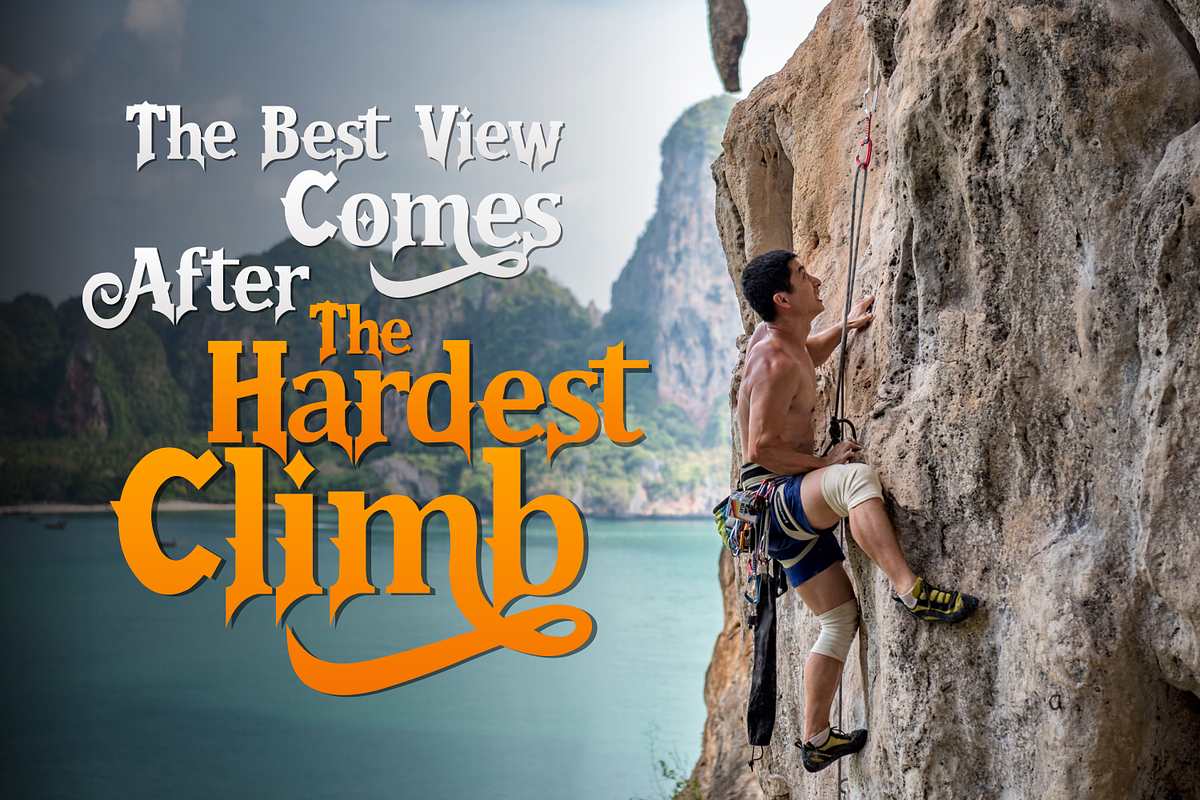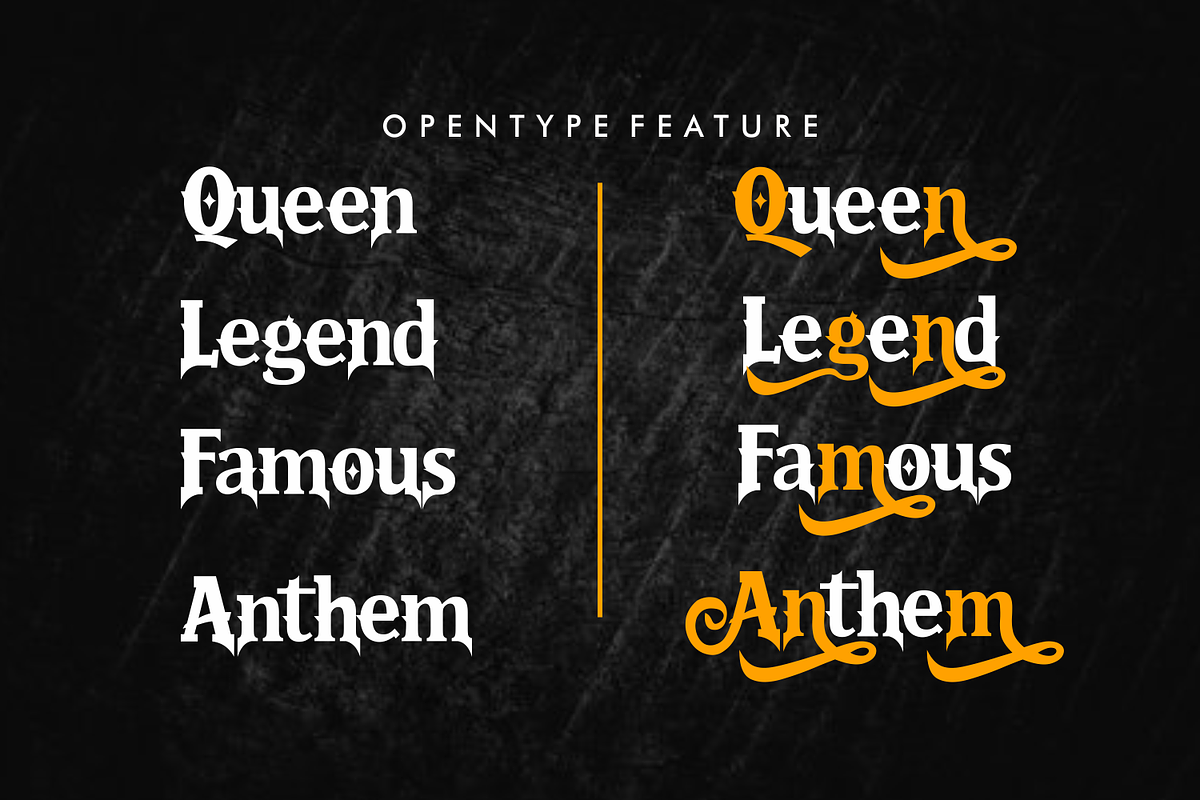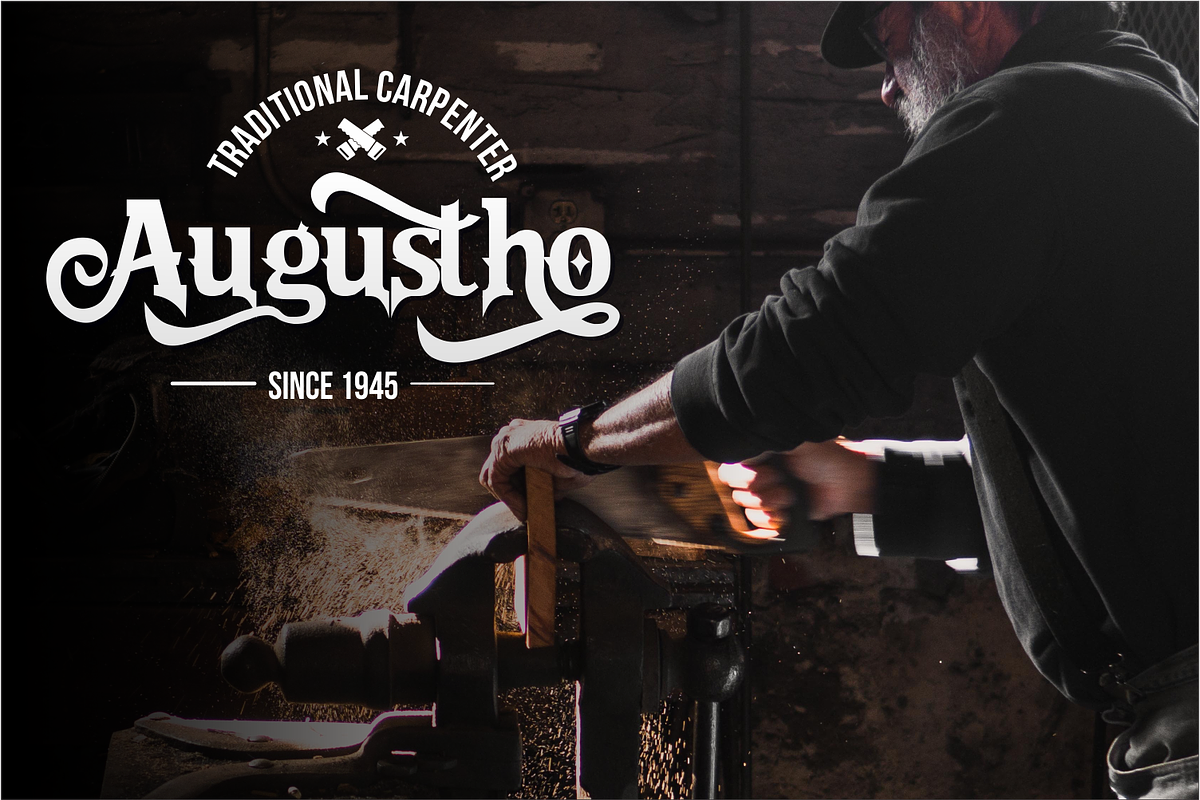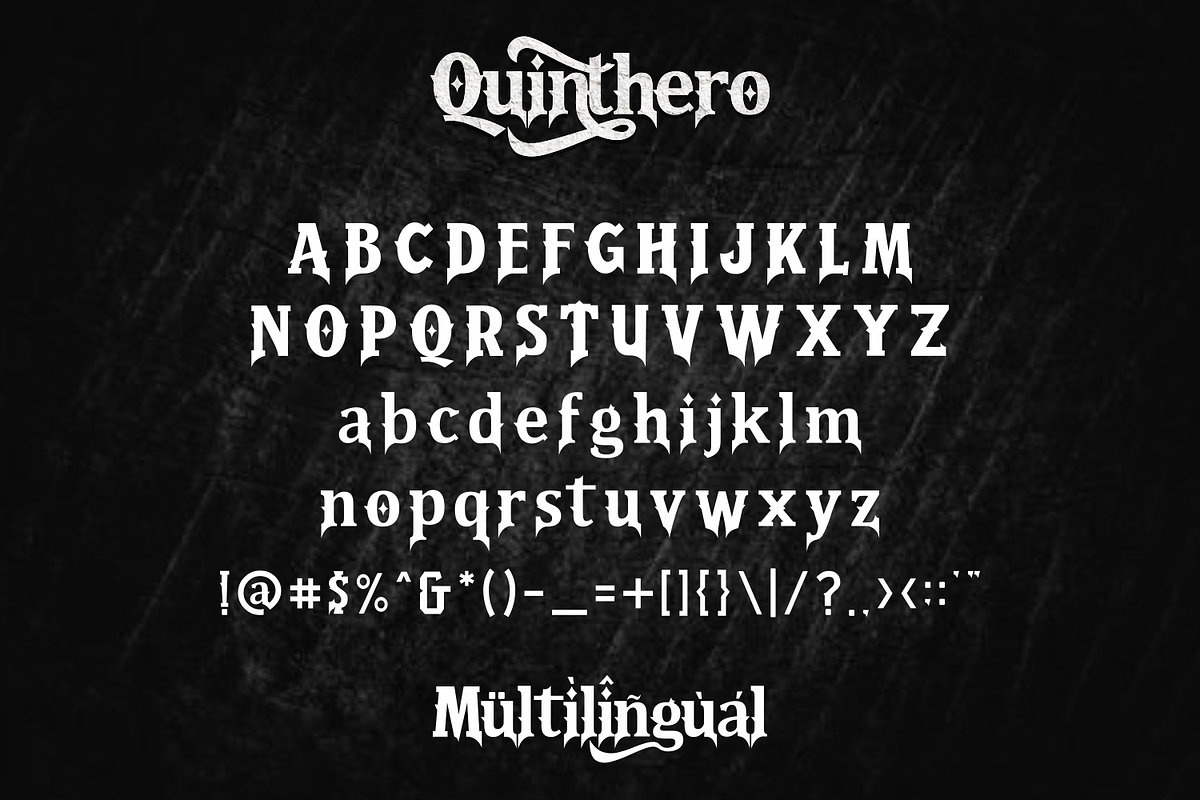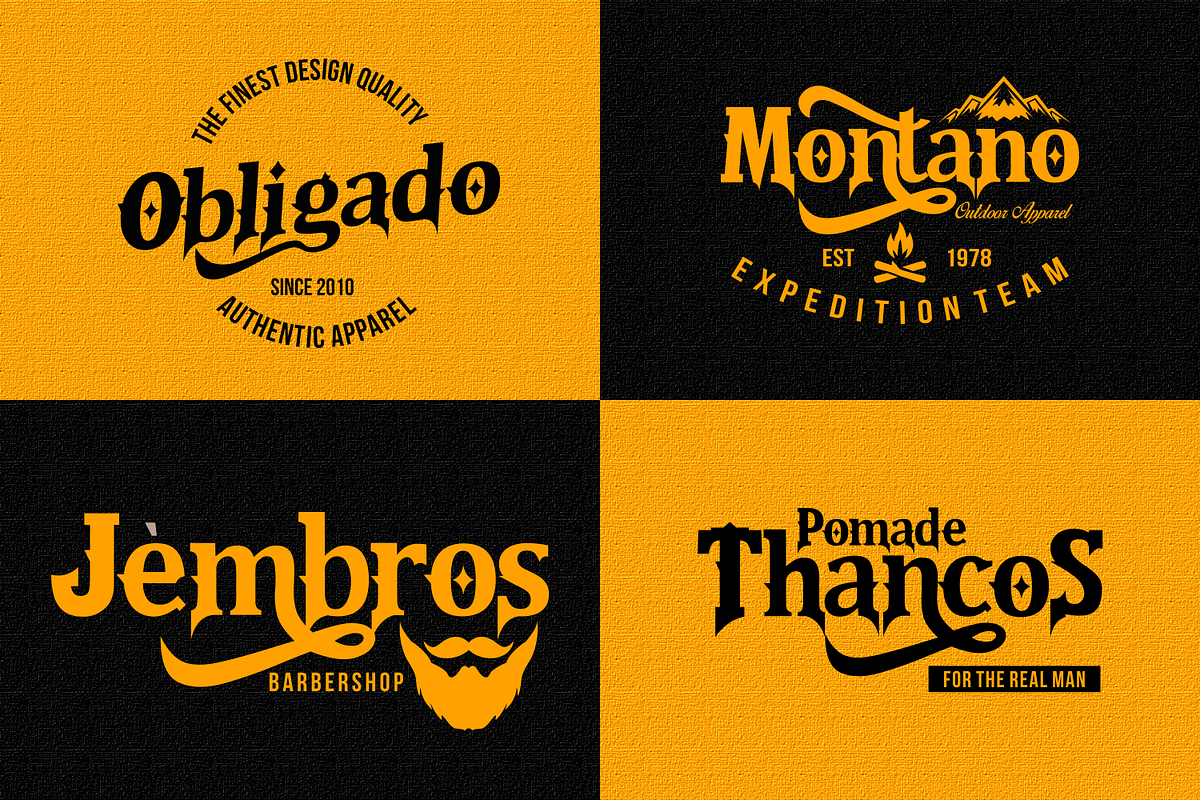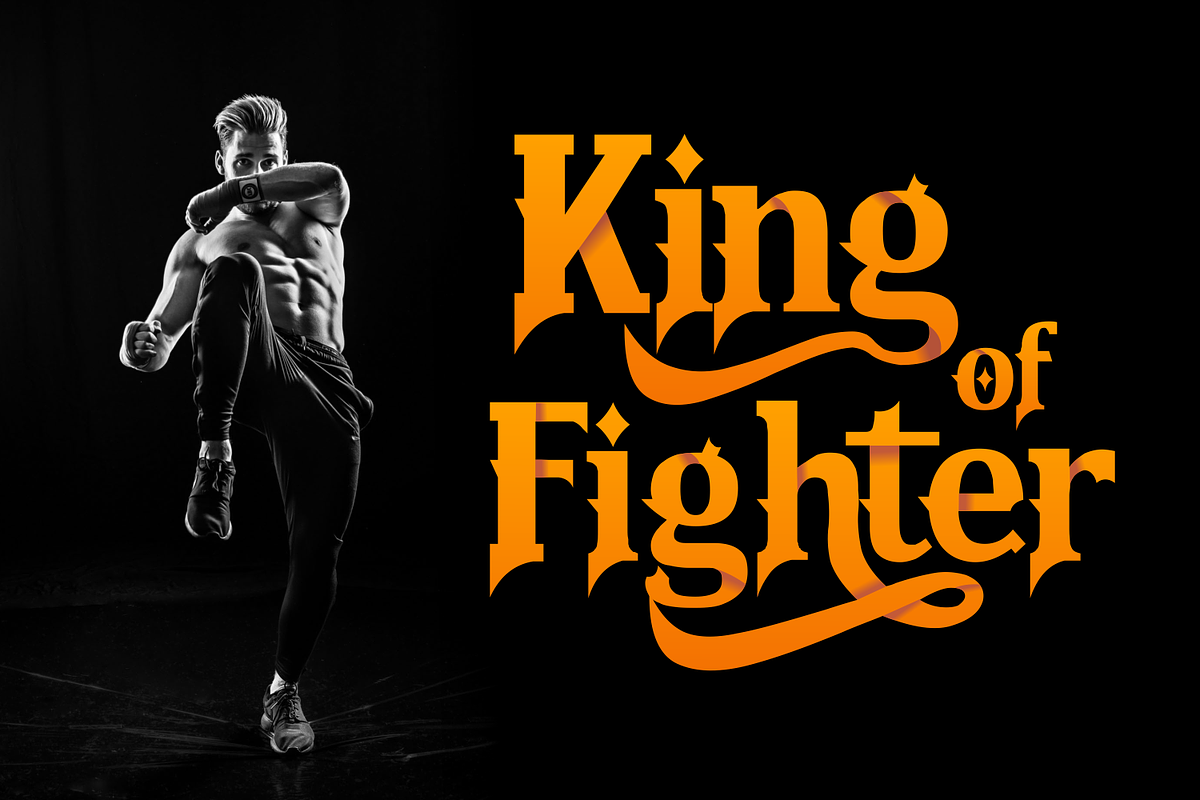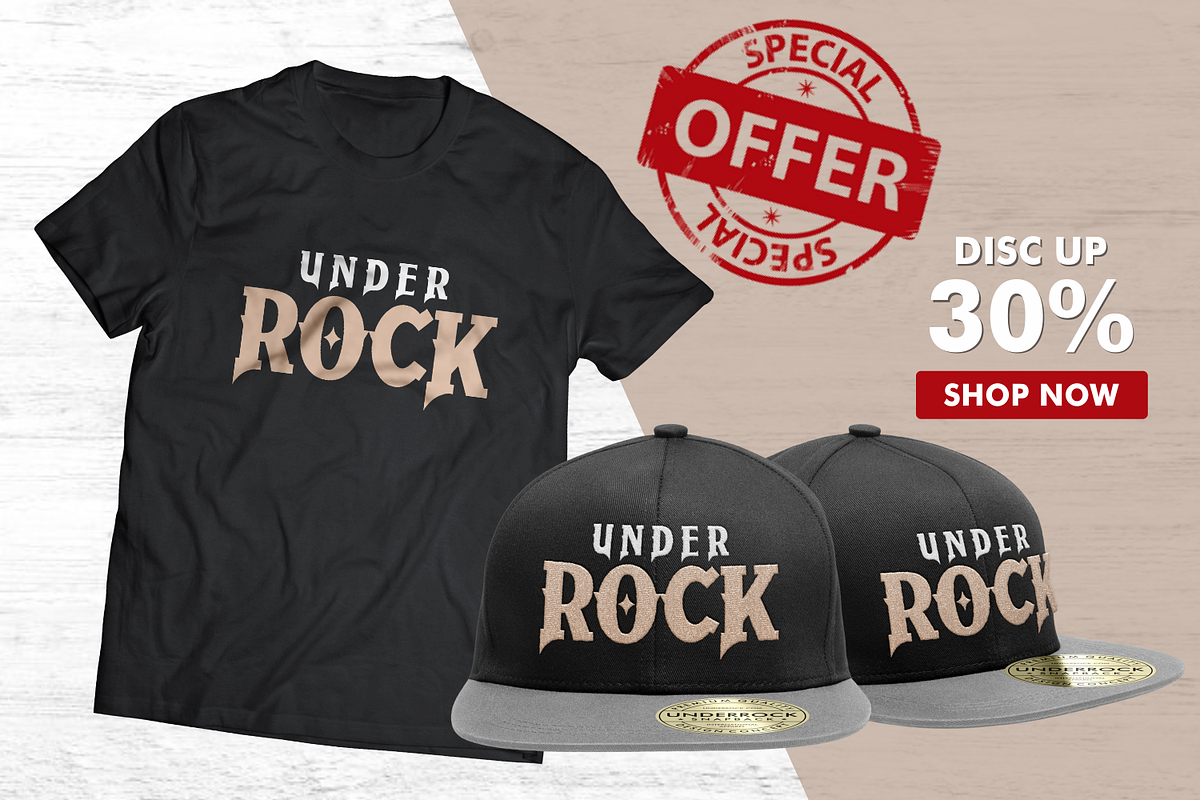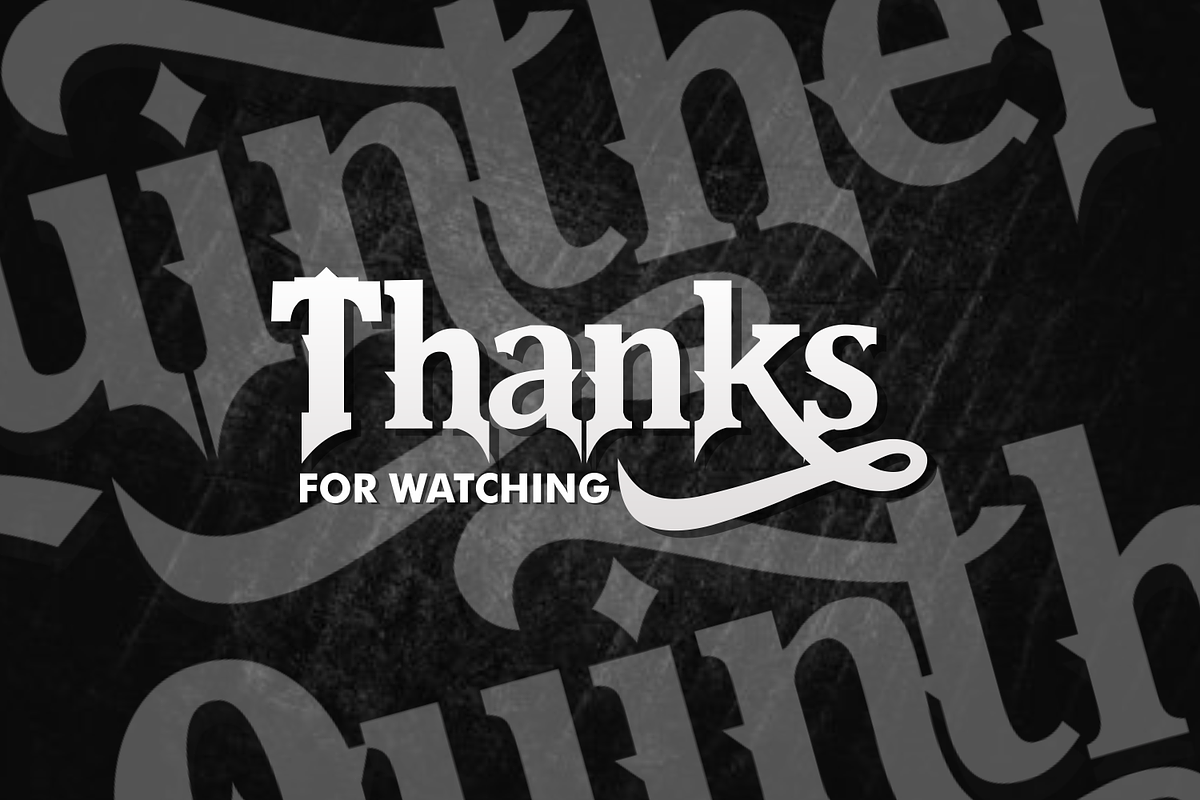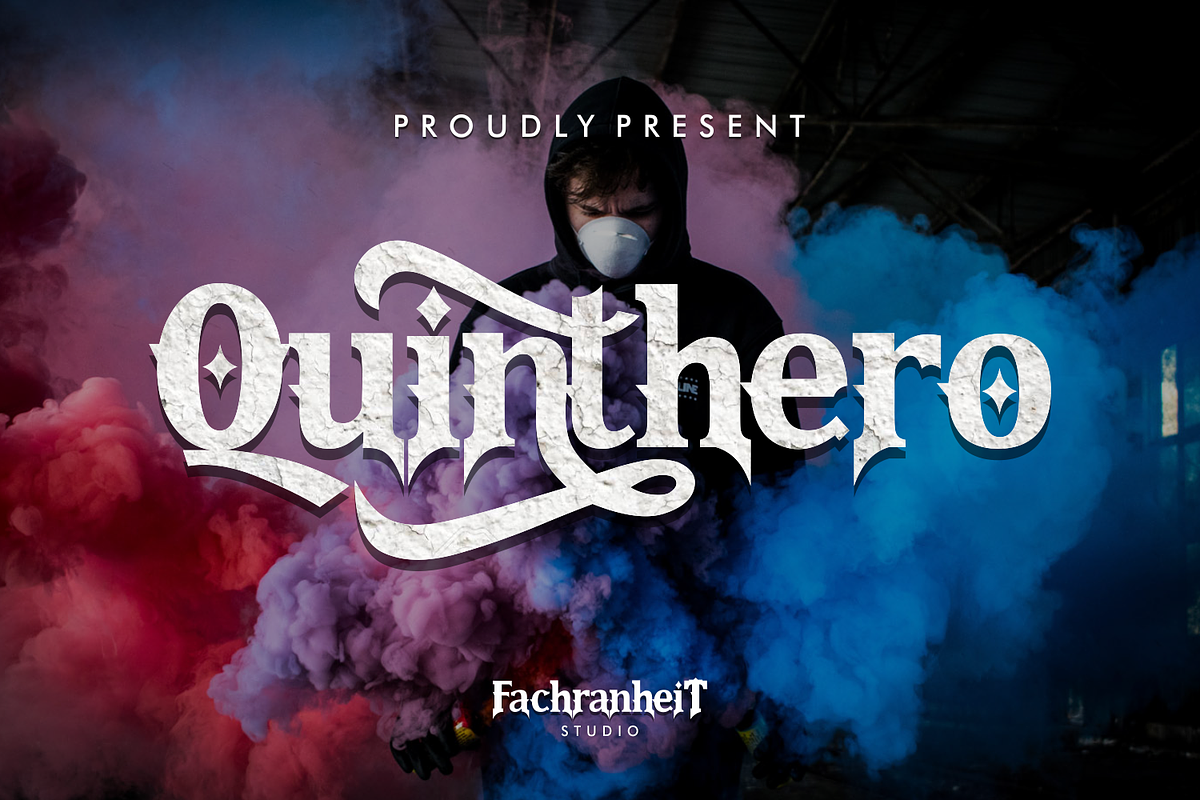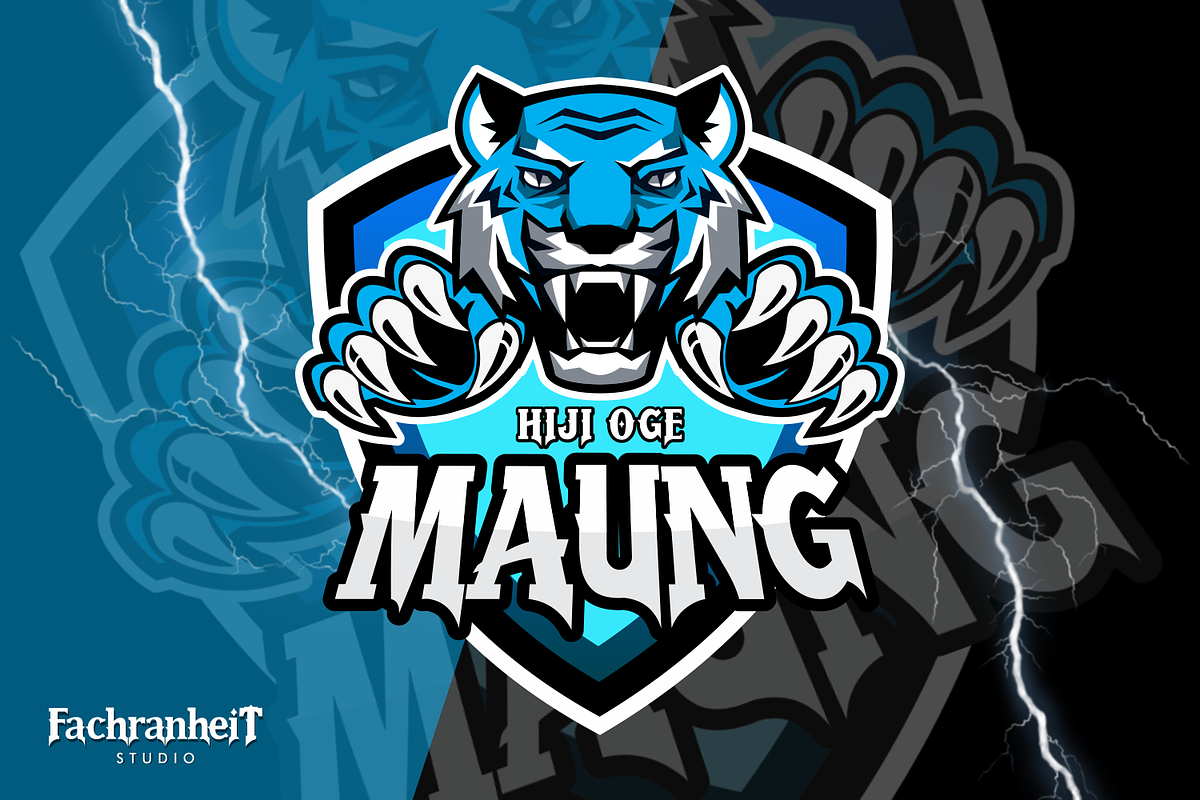
Quinthero
The Quinthero is an old, vintage display typeface. It has regular characters. It can be used for logos, t-shirts, quotes, badge, branding, headers, labels, packaging and much more!